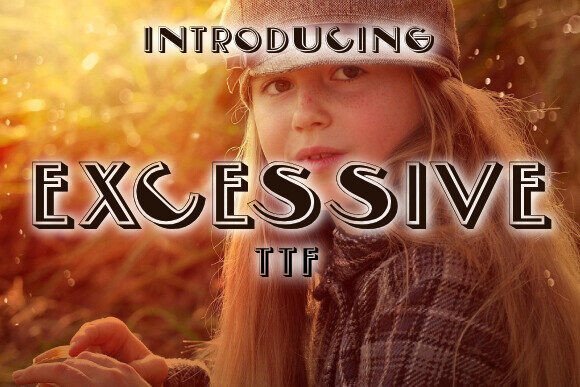
Introduction to Excessive Font
Excessive is stylish font that will make Your designs look great.
Use this font on posters, flyers and t-shirts .
Why Choose Excessive Font?
Excessive Font offers exceptional quality and versatility, making it a valuable addition to your design toolkit. Whether you’re creating for personal projects or commercial use, Excessive Font delivers professional results.